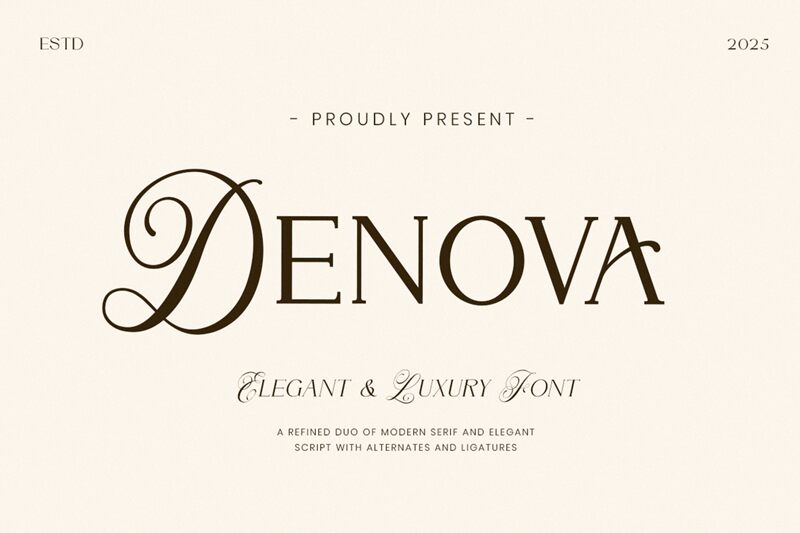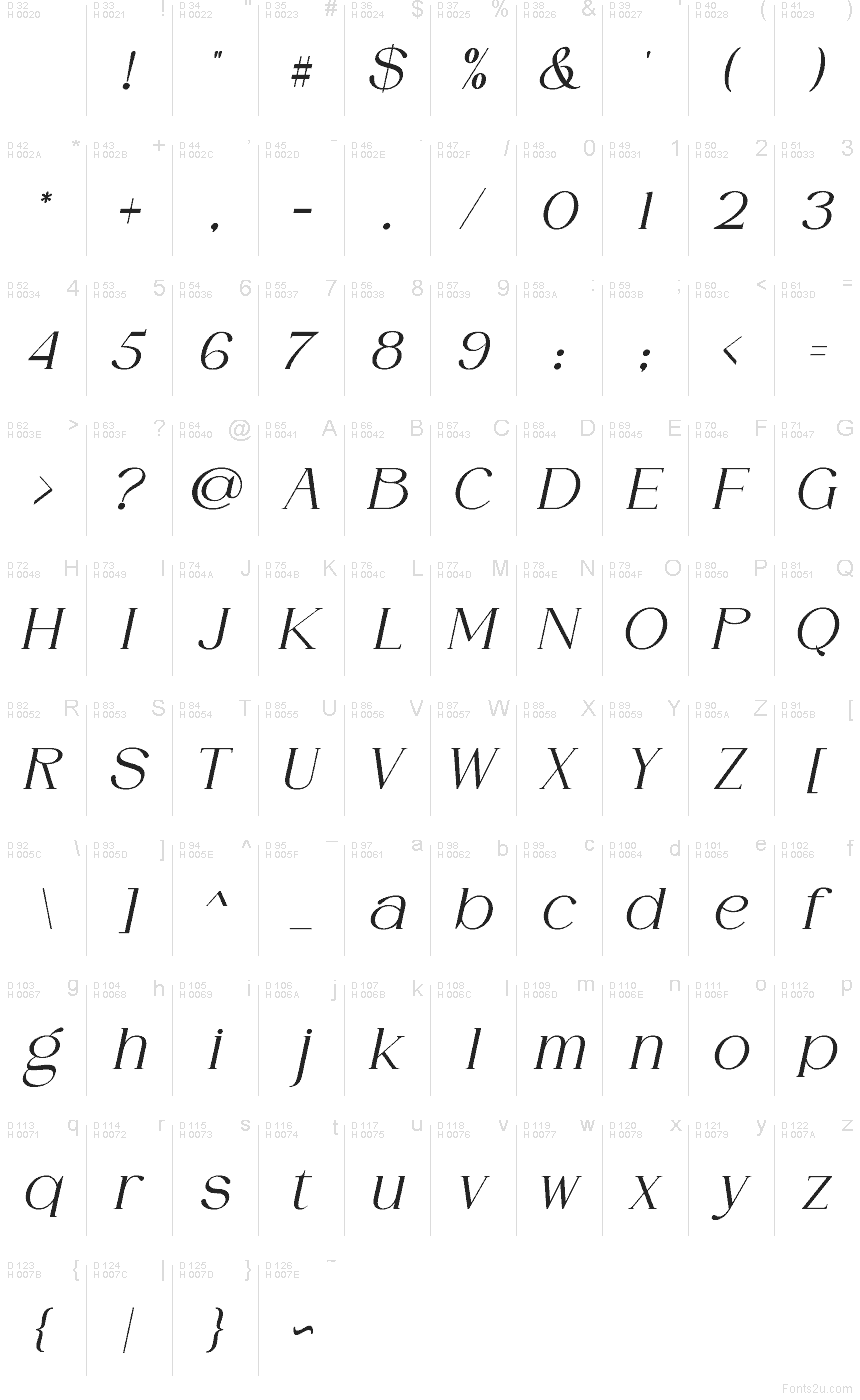
DENOVA Italic
DENOVA Italic font by Toni Studio, from the DENOVA family, is a free serif font that brings runway polish without feeling precious. Its long, slanted letterforms and hairline strokes create a swift, silky rhythm, with crisp, knife‑edge serifs that keep the whole wordmark looking tailored and expensive.
Using DENOVA Italic, you’ll get standout results on fashion branding, beauty packaging, book covers, editorial pull quotes, film titles, luxury invitations, and boutique hotel signage. Set it a touch larger and give it breathing room so the fine details stay clean, then pair this free font with a quiet grotesk sans for captions and supporting text.